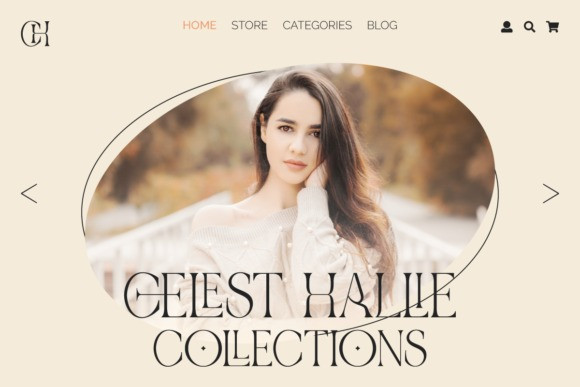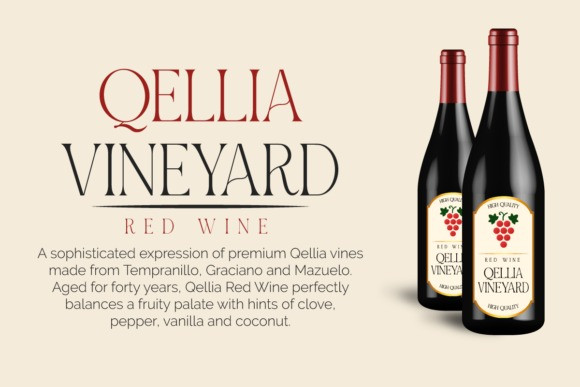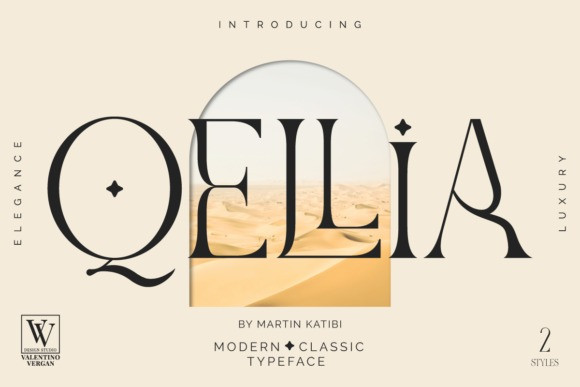
Qellia Font
Qellia Serif Font is a stylish and slim serif font. It will look stunning on any poster, flyer or print.
Use this font for your designs and explore its endless possibilities.